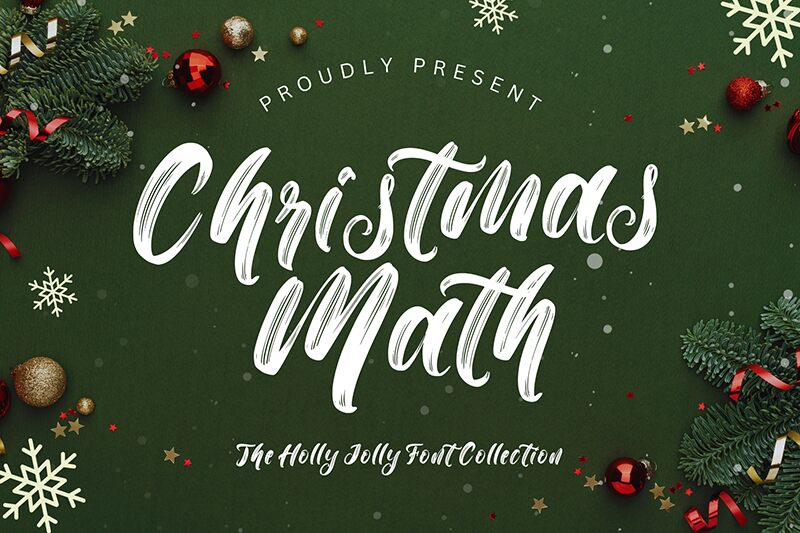
Christmas Math
Christmas Math font by Sarif Letter is a bold brush typeface inspired by holiday joy and exciting celebrations. Its decorative and flowing touches create expressive texts, and its smooth lines beautifully reflect a handwriting-style design. The elegant characters can be the engaging part of any typographic project, combining the loveliest elements in one font.
Add magic to gift cards or sweaters, body lotion labels or mugs, invitation cards for Thanksgiving dinner or Christmas postcards. With its creative limits never defined, this free typeface also allows you to try your hand at movie posters (Krampus perhaps?), T-shirt designs, websites banners…